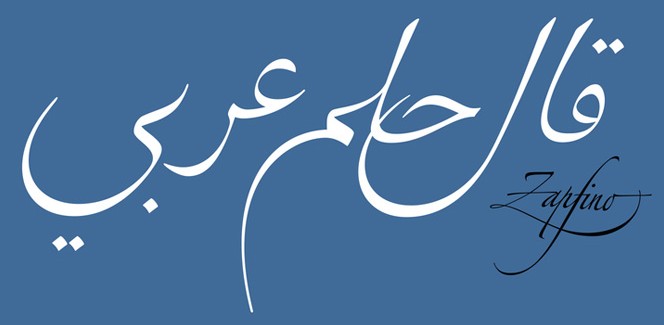
Zapfino Arabic
Zapfino Arabic is a contemporary Arabic typeface designed by the Lebanese designer Nadine Chanine in order to complement the legendary Hermann Zapf’s Zapfino font family. Dr. Nadine Chanine is a famous name in the field of the type design having won numerous awards. She has a great professional background and is currently working as an Arabic specialist at Monotype. One of her main interest is creating a smooth and flowing relationship between Latin and Arabic fonts. This is the reason she decided to undertake the painstaking task to create Zapfino Arabic with the approval of Prof. Hermann Zapf. The work took more than two years and a significant effort as the task was extremely difficult. But the result is definitely worth it!
Zapfino Arabic is a contribution to the Arabic calligraphic traditions. Indeed it is a new back slanted calligraphic style, a combination between Naskh and Nastaaliq. It supports both Arabic and Basic Latin. 10 stylistic sets and a vast number of contextual variants are provided that work perfectly in order to create an even flow of pen movement. The design is very delicate and stylish and leaves a lot of room for implementing different project ideas. Zapfino Arabic is highly legible and is intended for use as a display font, for headlines, logos, posters etc. However, no matter for what project it would be used, this typeface will be a great addition to any Arabic typeface library.